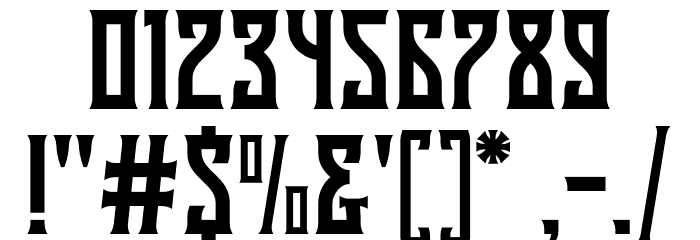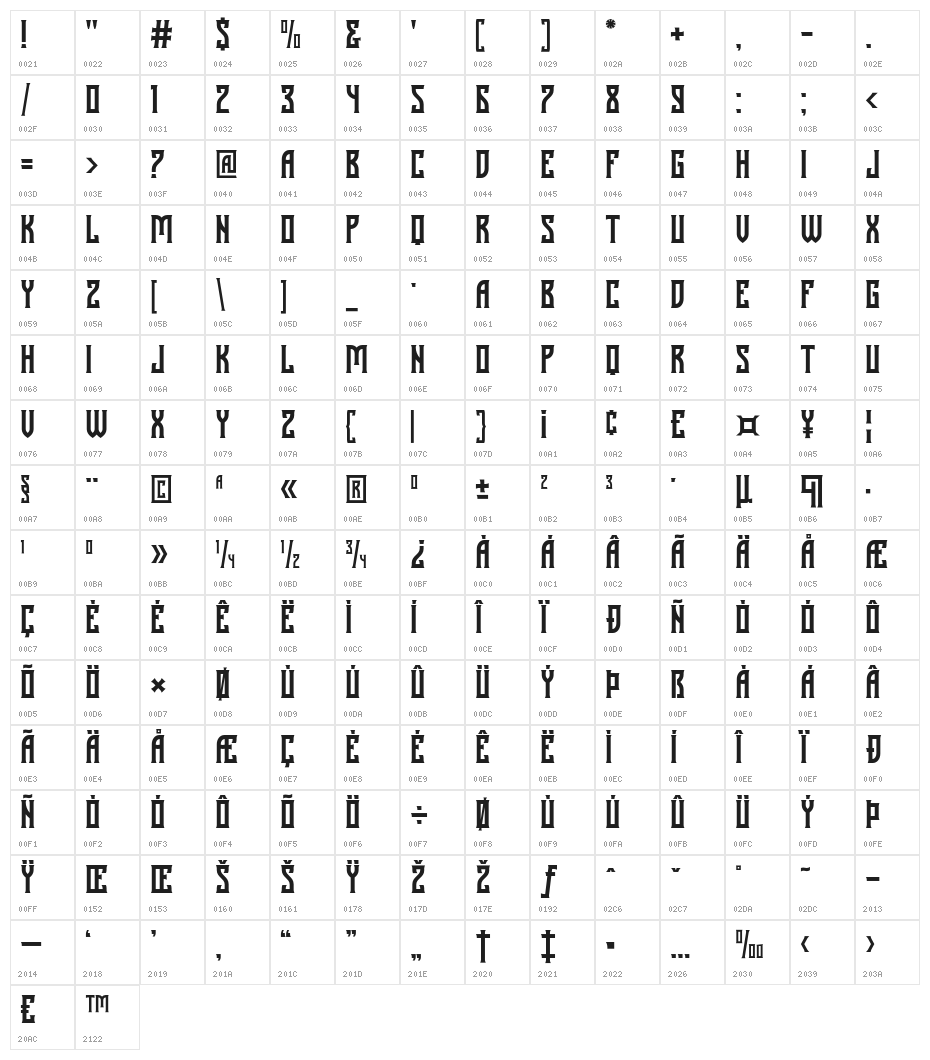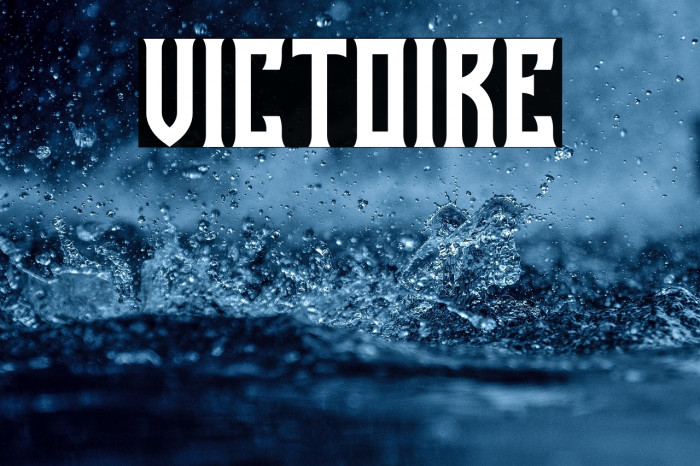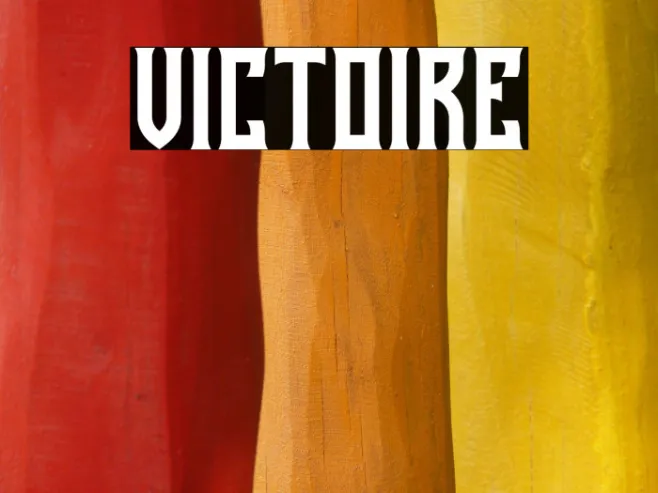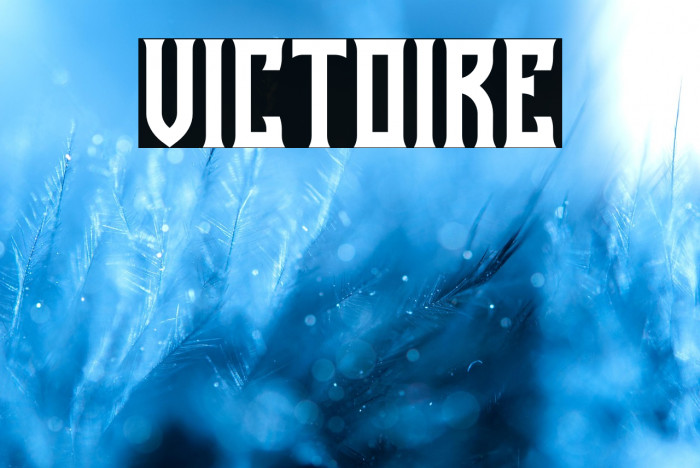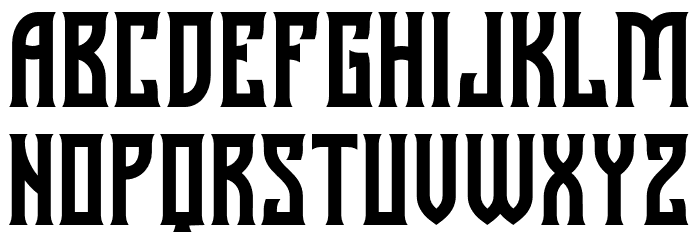
Victoire Font
Victoire Description
This font features a bold and striking design with a strong geometric influence. The characters are tall and narrow, with sharp angles and a distinct, modern aesthetic. The uppercase letters are particularly prominent, with a uniform height and consistent stroke width that conveys a sense of power and authority. The numerals and special characters maintain this bold style, ensuring a cohesive look across all text elements. The font's unique style makes it suitable for attention-grabbing headlines and impactful designs.
| Proposed Projects | Ideal for branding, posters, and headlines where a strong visual impact is desired. |